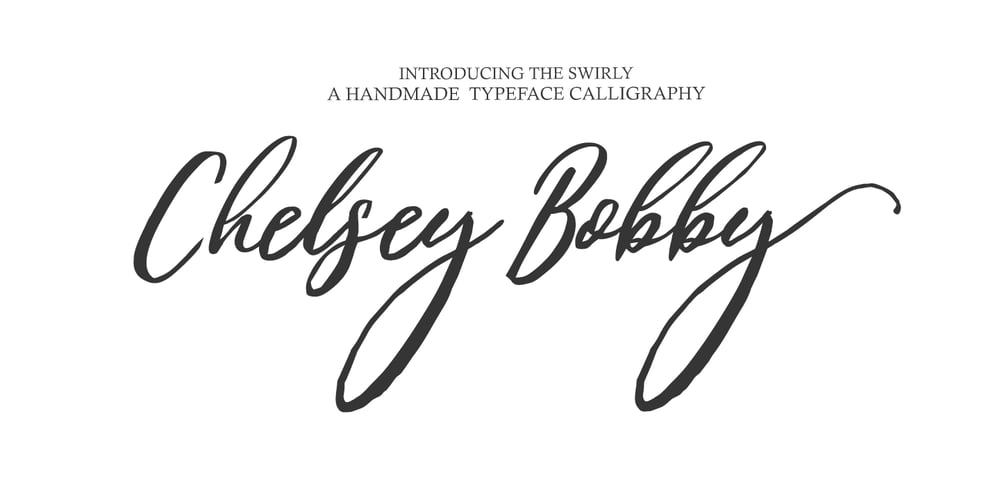
Chelsey Bobby Font Family was designed by khaidir and published by Gatype. Chelsey Bobby contains 1 styles and family package options. Chelsey Bobby model original handwritten simple font, the newest you can get now! With an updated hand calligraphy model with special glyphs that have been given a combination of fantasy and handwritten ink. This font will look beautiful on all designs, Wedding designs, branding materials, blog titles, quotes and invitations, business cards.OpenType includes: Alternative Style Set styles Including fonts:. Chelsey Bobby. OTFTo enable the OpenType Stylistic alternative, you need a program that supports OpenType features such as Adobe Illustrator CS, Adobe Indesign & CorelDraw X6-X7, Microsoft Word 2010 or later.There are additional ways to access the alternative/swash, using the Character Map (Windows), Nexus Font (Windows), Font Book (Mac) or a software program such as PopChar (for Mac and Window).This font has provided PUA unicode (custom code font)